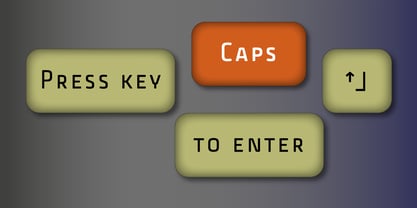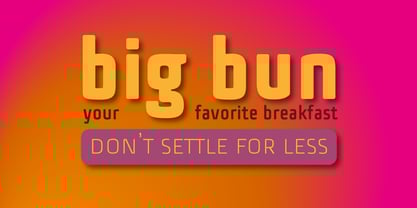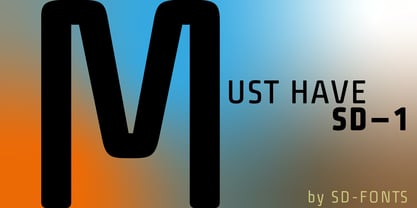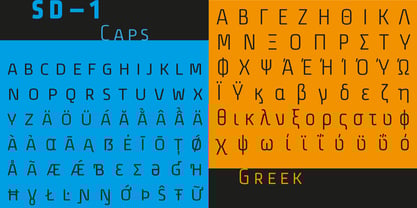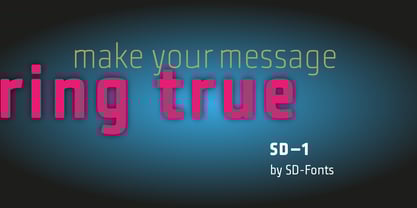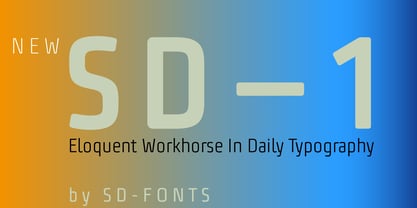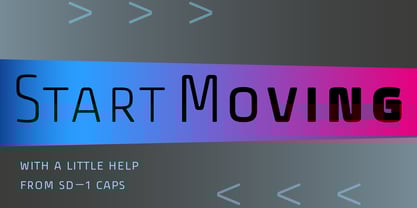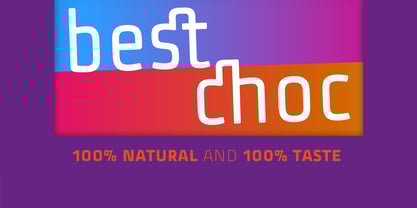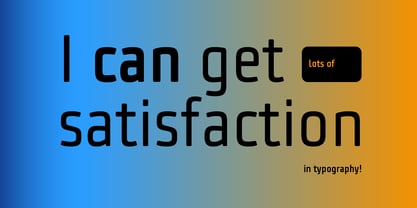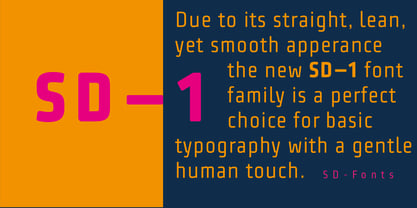
SD one
by SD Fonts
The SD one Font Family was designed by Hartmut Schaarschmidt and published by SD Fonts. SD one contains 7 styles and family package options.
SD-one is a typeface I started creating in 2012 as a square sans project with softened edges. The structure of the slightly condensed characters is somewhat firm and straight, but also kind of charming on behalf of its slightly rounded outer edges. A perfect font for food packaging, medical appearances, cultural events and other issues needing to communicate a human touch without loosing sincerity. So I now decided to give it an update, complete the latin and greek language sets and add a couple of useful features to enable it to perform as a good workhorse in typography at your demand.